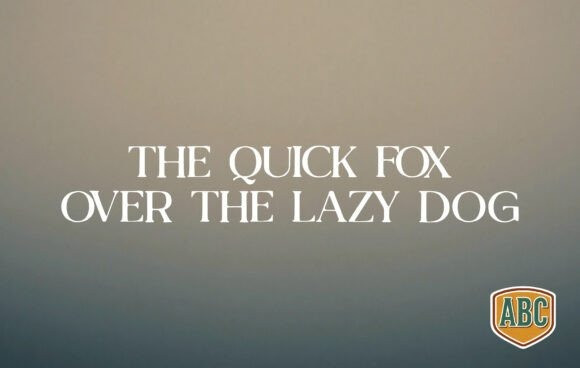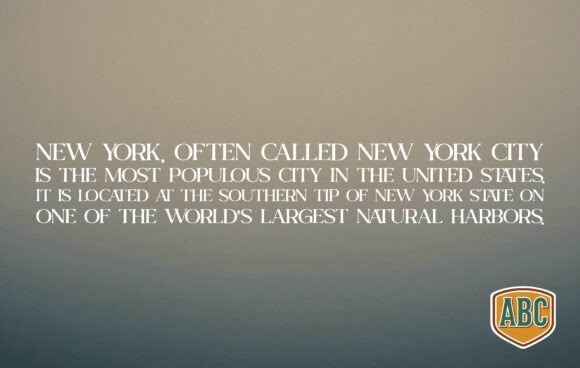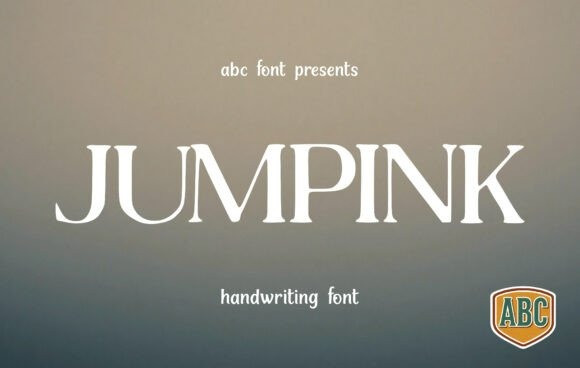
Jumpink Font is a refined, high-contrast handwriting font that blends the structure of classic serif typography with a soulful, hand-inked aesthetic. The typeface features sharp, delicate serifs and dramatic transitions between thick and thin strokes, creating a sense of rhythmic elegance. Its unique personality comes from the slightly irregular, organic edges of the letterforms, which evoke the look of a fountain pen on textured paper.
This font is a premier choice for cinematic title sequences, sophisticated fashion editorial headers, artisanal brand identities, and high-end stationery that requires a graceful yet authentic human touch.